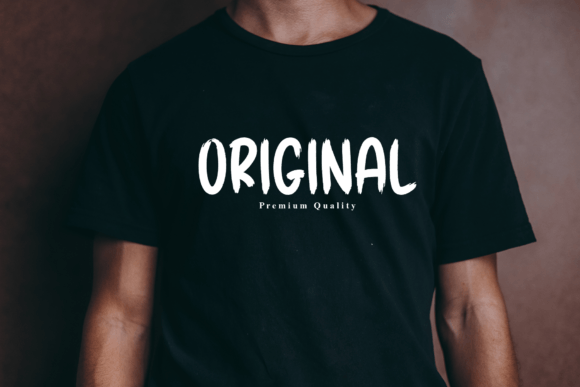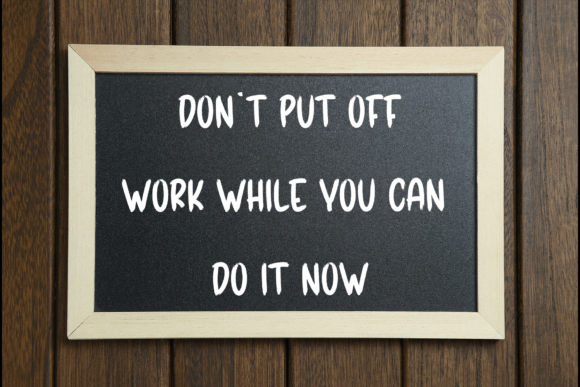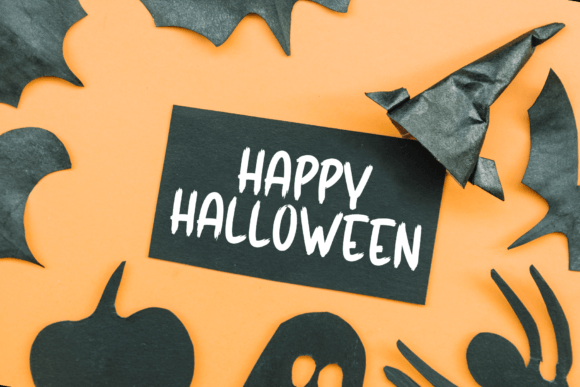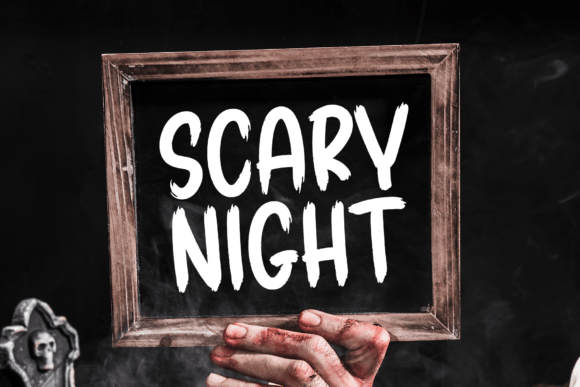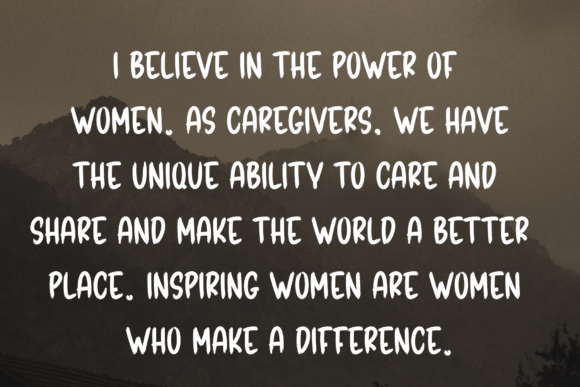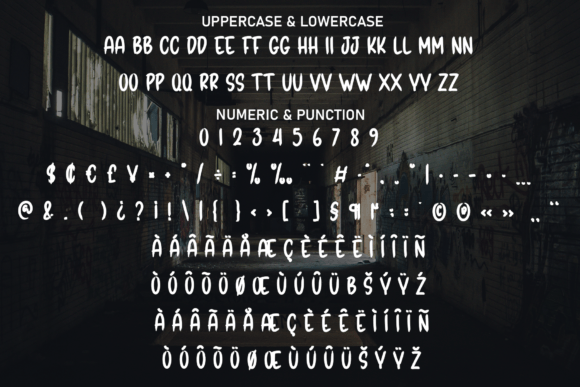
Introduction to Scary School Font
Scary School is a brush font with a spooky twist.
Its rough, hand-drawn letters give off a chilling vibe, perfect for creating eerie, Halloween-themed designs or anything that needs a touch of fright .
Key Features of Scary School Font